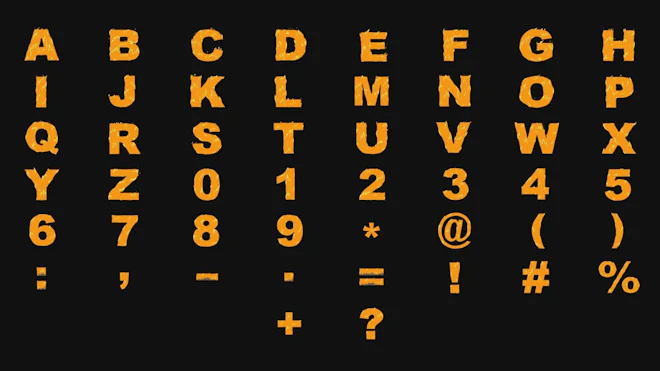
This Final Cut Pro template features animated letters, numbers, and symbols with adjustable colors. This playful and colorful font, styled with flames and a cartoonish flair, is perfect for adding a fiery touch to your videos. A video tutorial is included in the package.